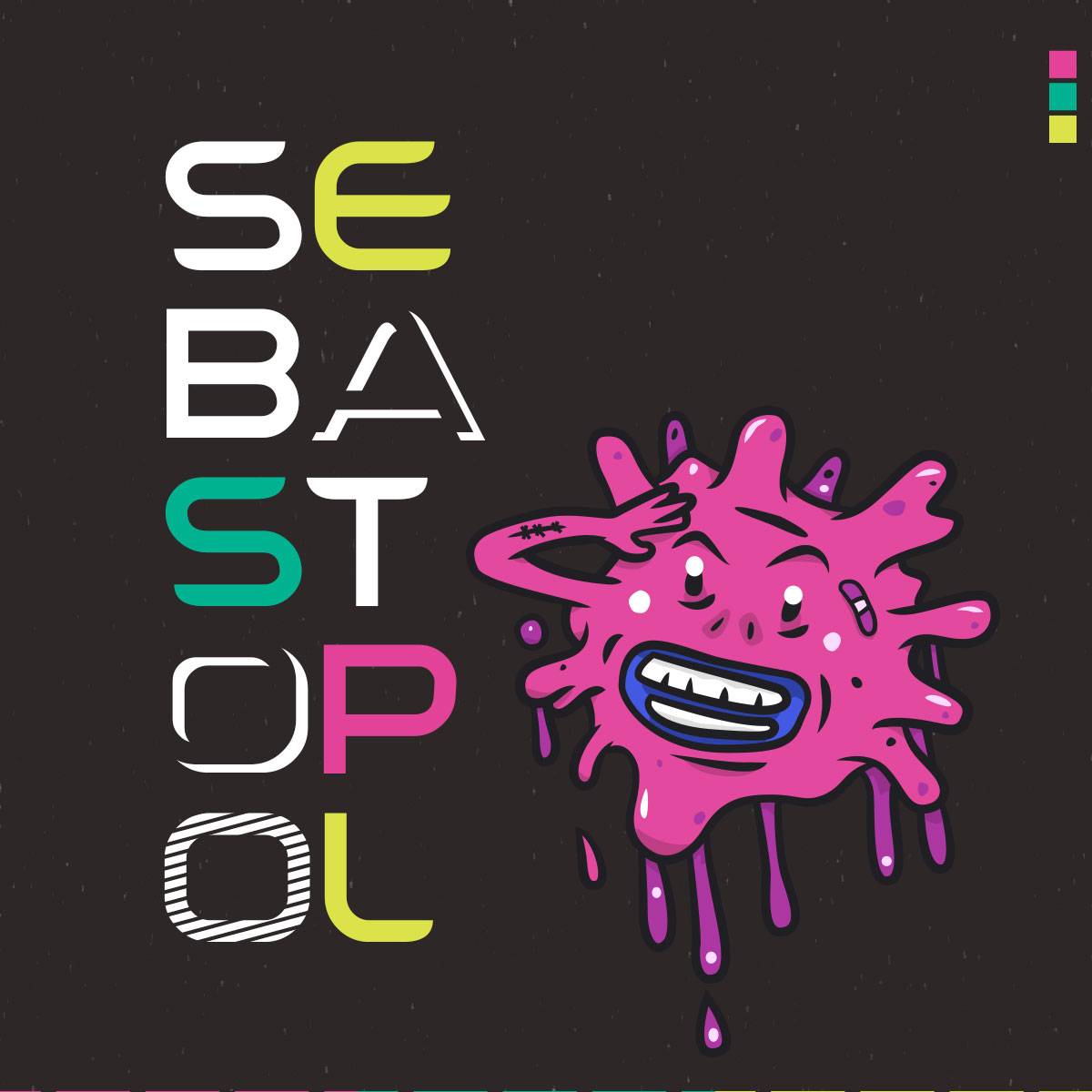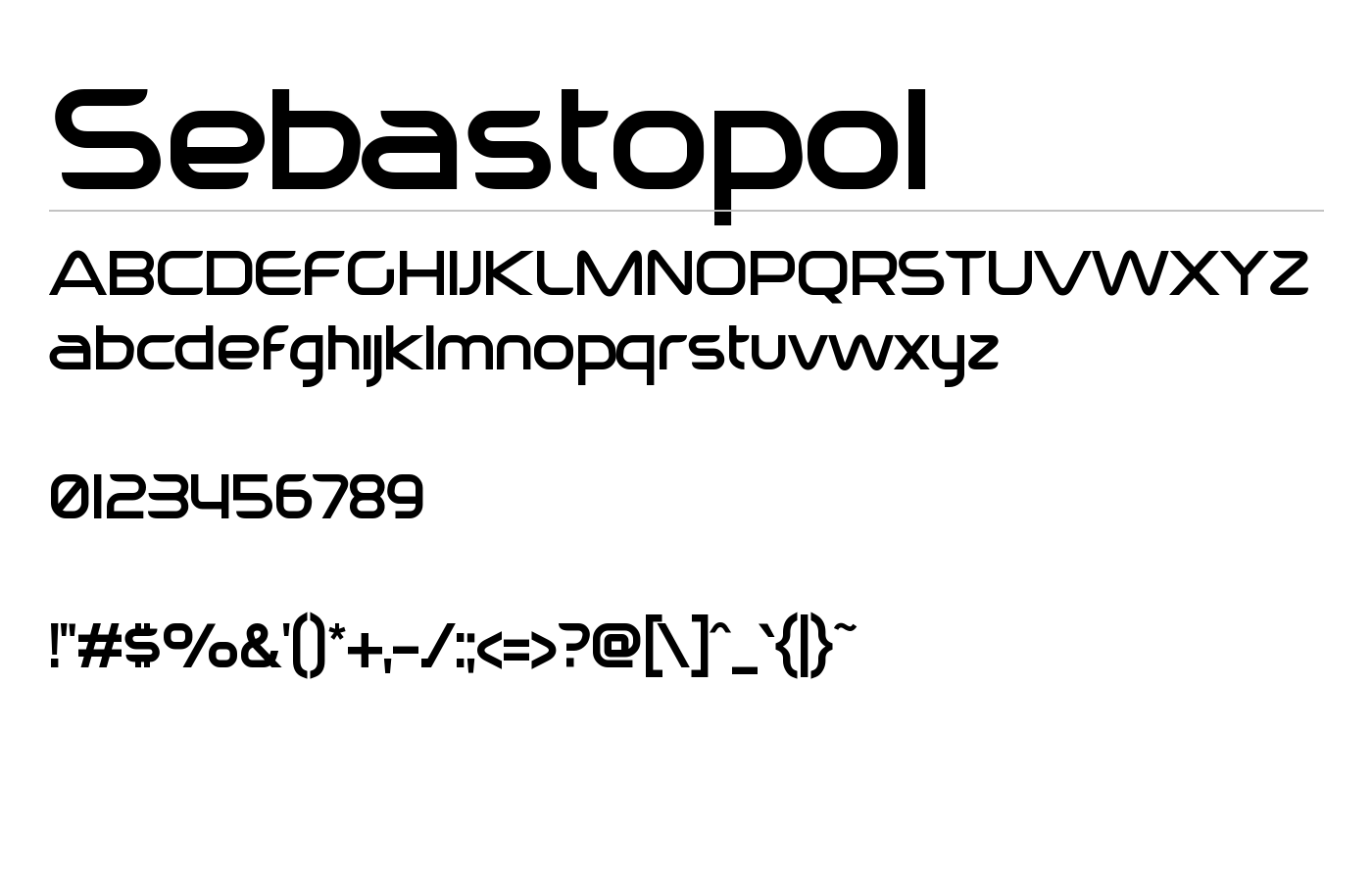
Sebastopol is a modern, geometric sans serif font with a clean, tech-inspired look. Its medium weight, high x-height, and slightly condensed letterforms create a compact yet readable style, while unique shapes and sharp terminals add a futuristic and distinctive character. Ideal for branding, headlines, and digital interfaces, Sebastopol conveys innovation and precision with a confident, contemporary flair.
Sebastopol
About Sebastopol
| Font family | Sebastopol |
| Release date | 2017-05-25 |
| Designer | Michael Muranaka |